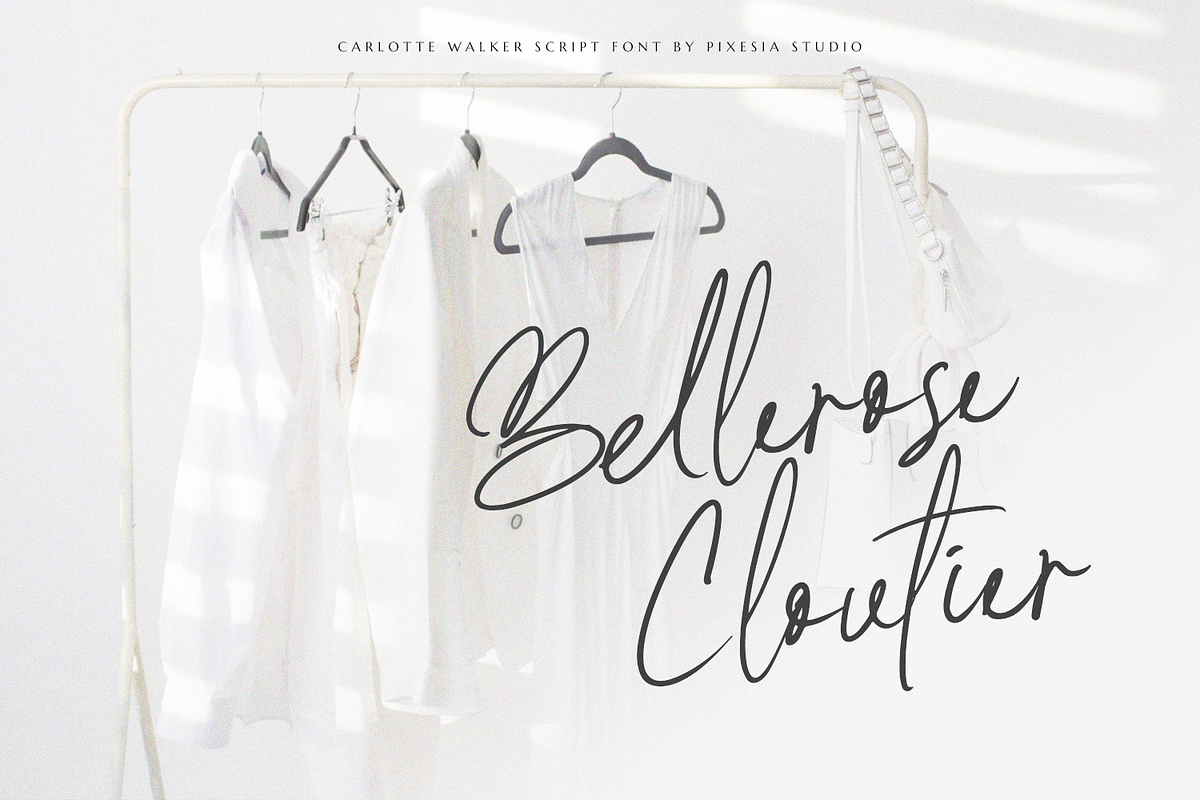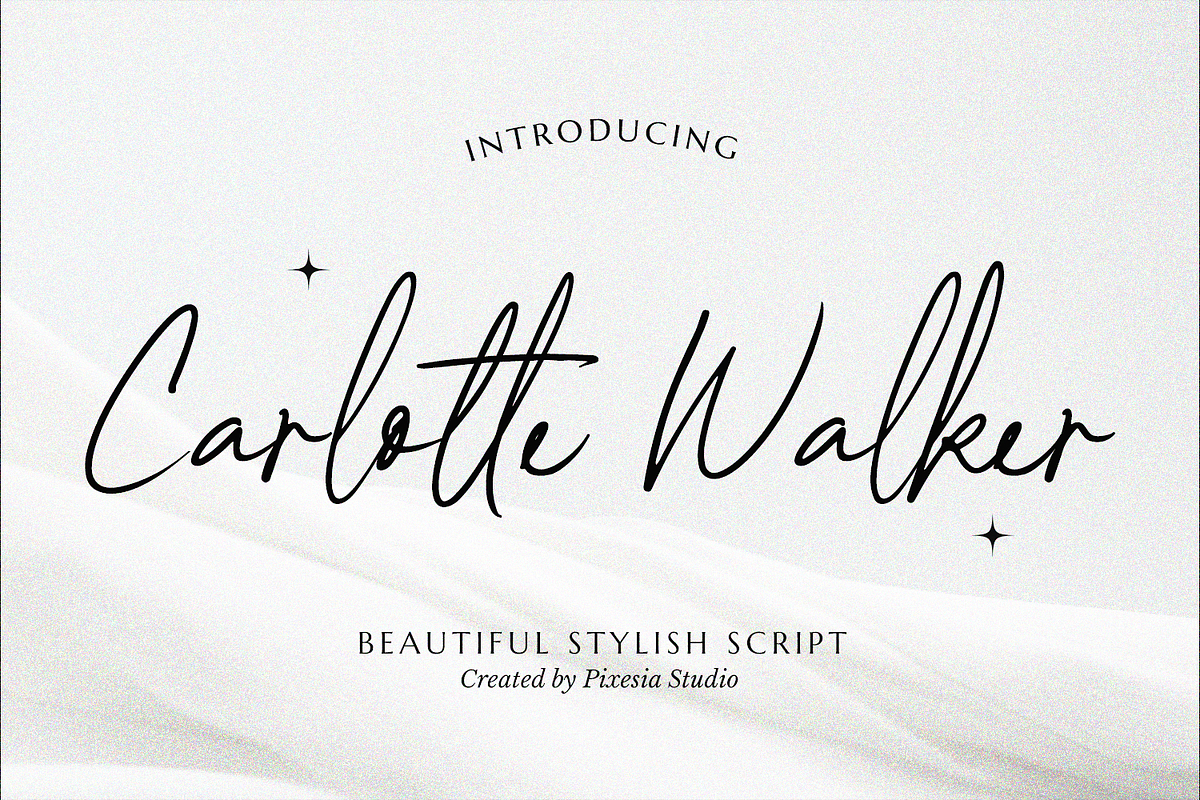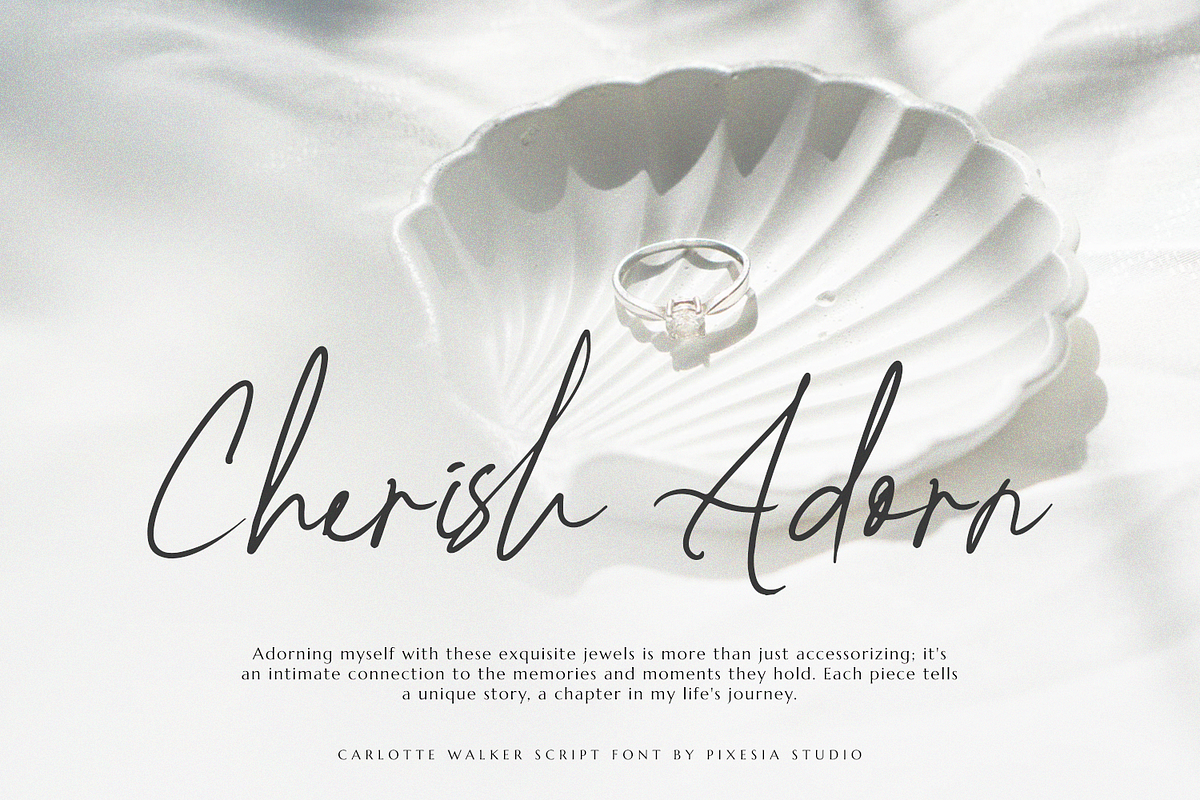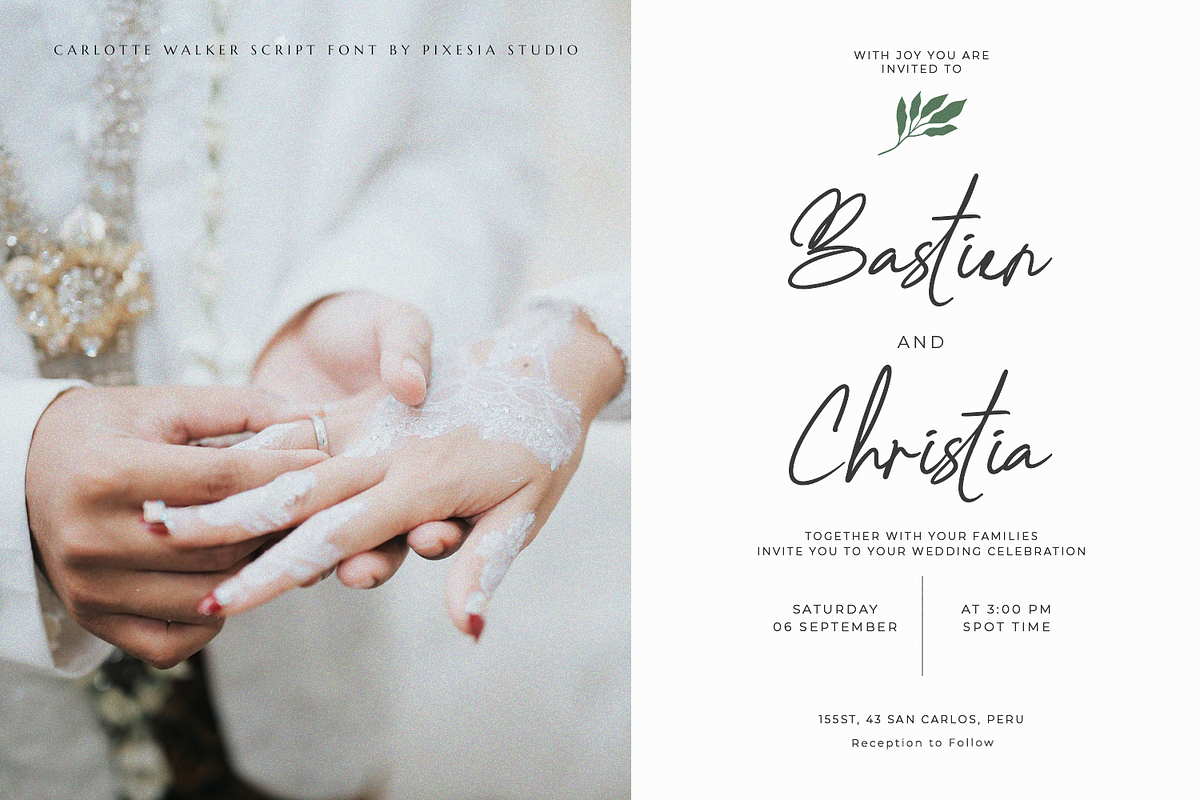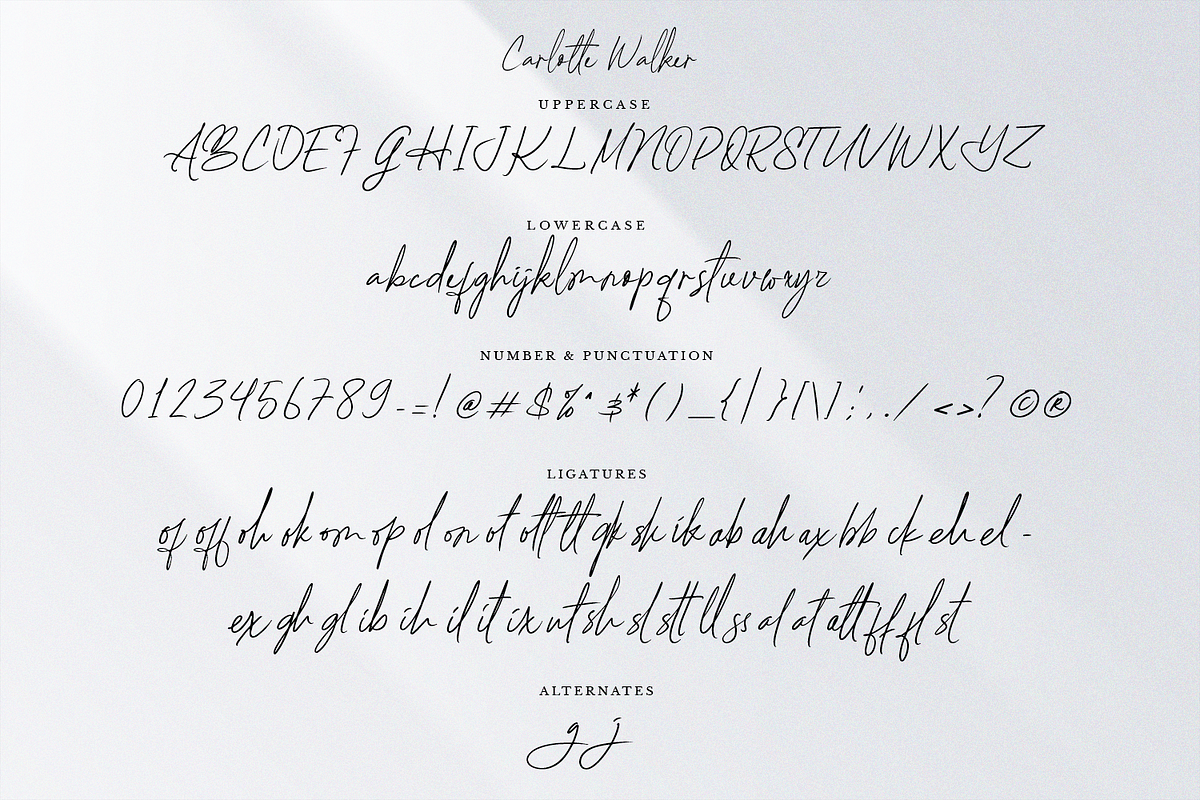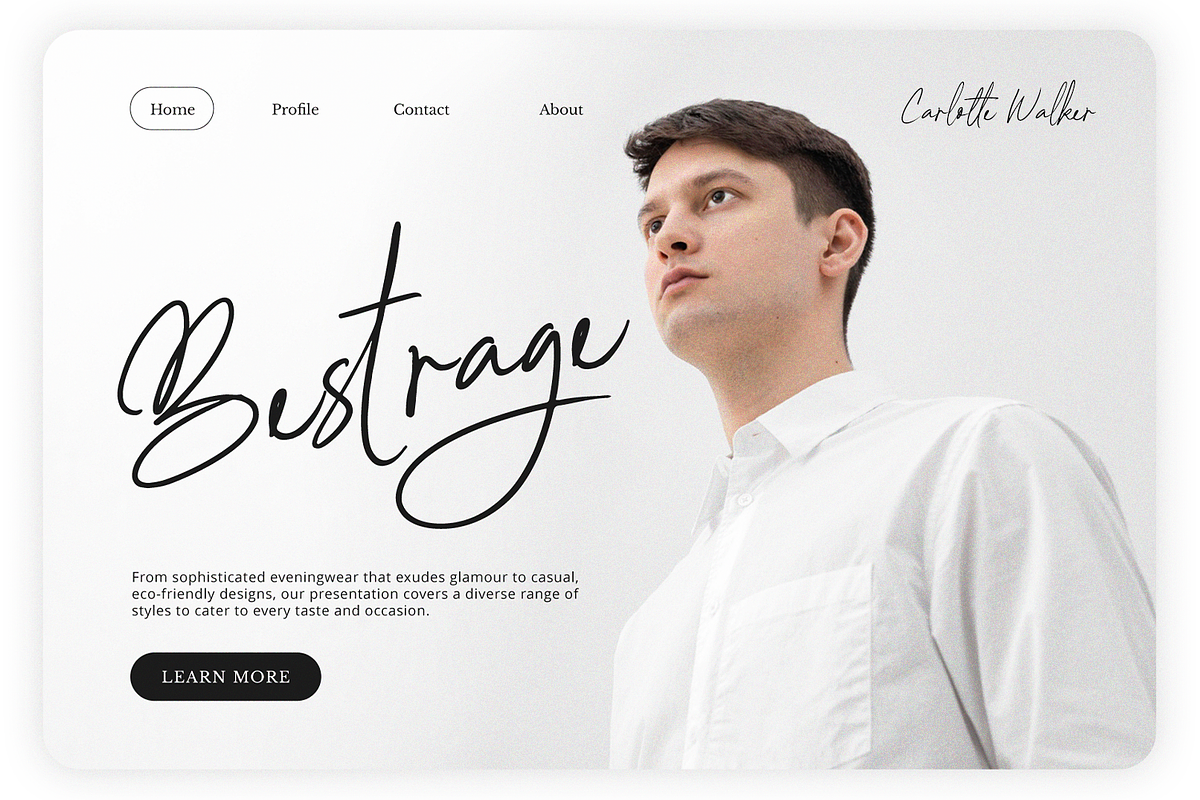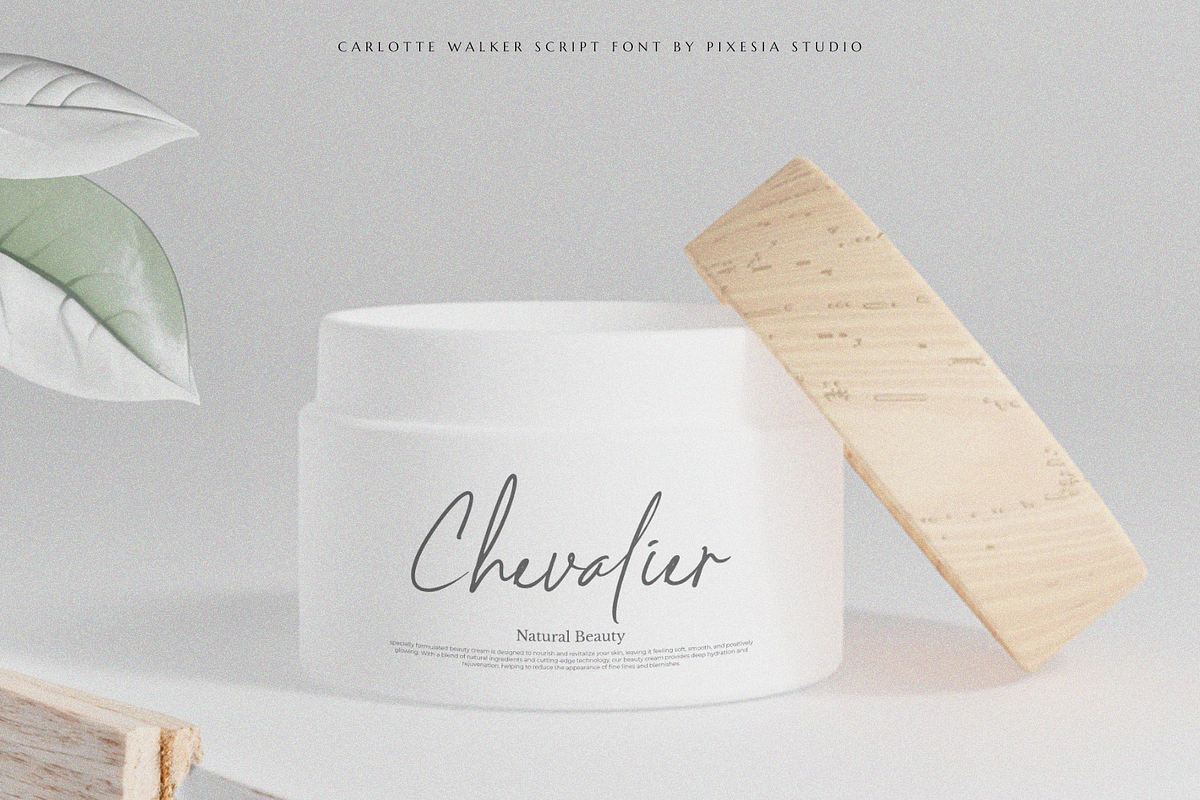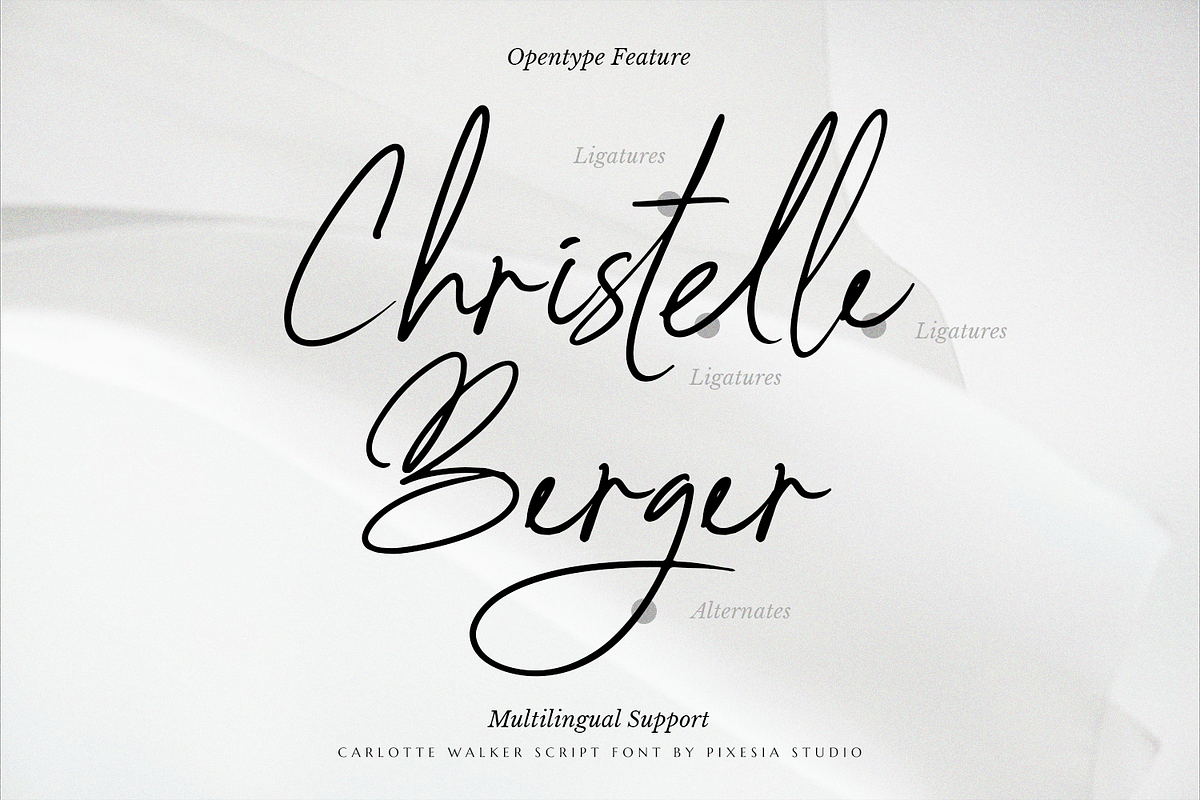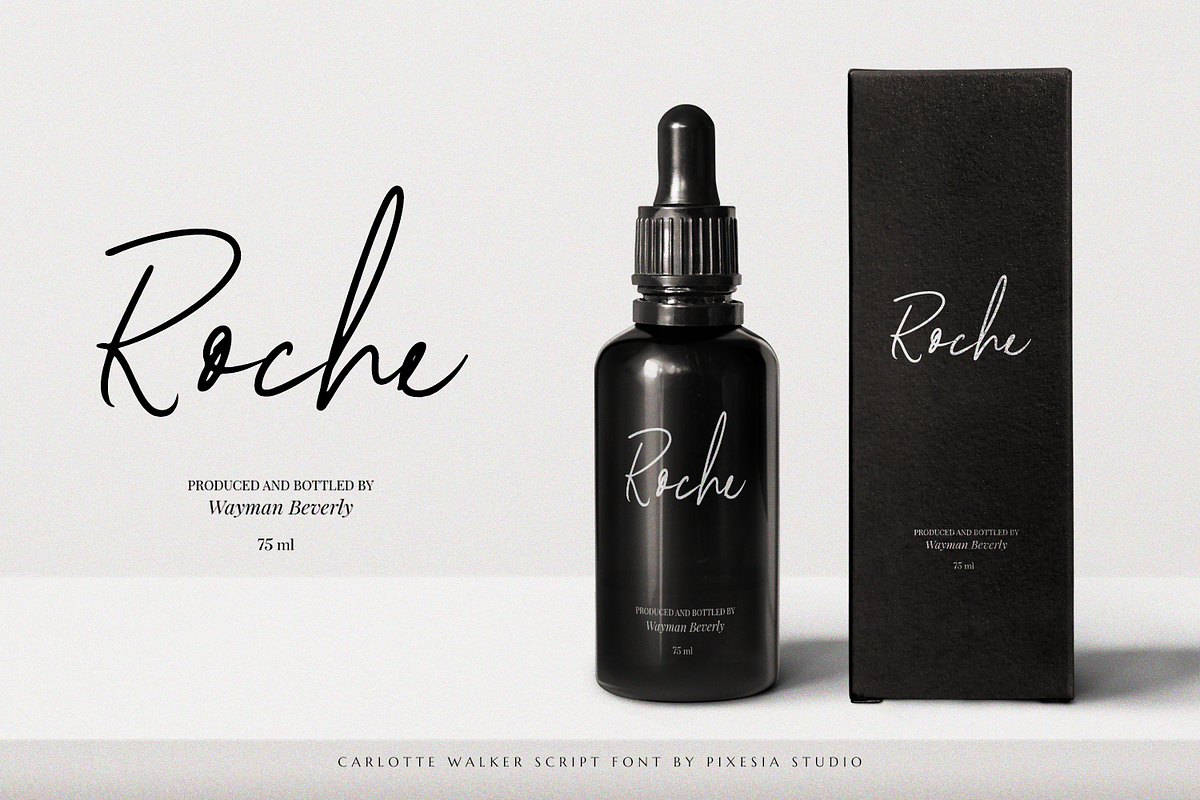
Carlotte Walker Script Business Font
Introducing Carlotte Walker - Script Business Font
Carlotte Walker is a vintage-stylish font inspired by vintage aesthetic and immersed with elegant and romantic touch. It brings various chances and alternatives to create a design with an elegant, sweet, and romantic vibe.
Carlotte Walker suits perfectly in a use of any fashionable or joyous occasion. Carlotte Walker is better used for fashion product packaging, clothing label, wedding invitation, or any projects seeking for a touch of elegant, romantic and vintage font.
- Multilingual Support for 75 languages including Afrikaans, Albanian, Basque, Catalan, Danish, Dutch, English, Estonian, Faroese, Filipino, Finnish, French, Galician, German, Icelandic, Indonesian, Irish, Italian, Malay, Norwegian Bokmål, Portuguese, Spanish, Swahili, Swedish, Zulu